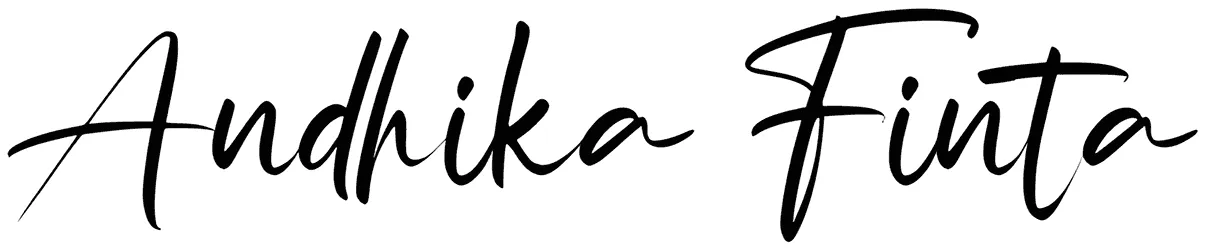
Andhika Finta Font
Andhika Finta, a slightly unreadable script font, has the appearance of being written in real hand and draws the reader in for a closer reading. If you want to make your work look more casual, you might want to download Andhika Finta from RB’s font sector, where you can find many high-quality fonts to choose from.
With its distinct and attractive look, this handwritten font is the best choice for designers who want their graphics to stand out.